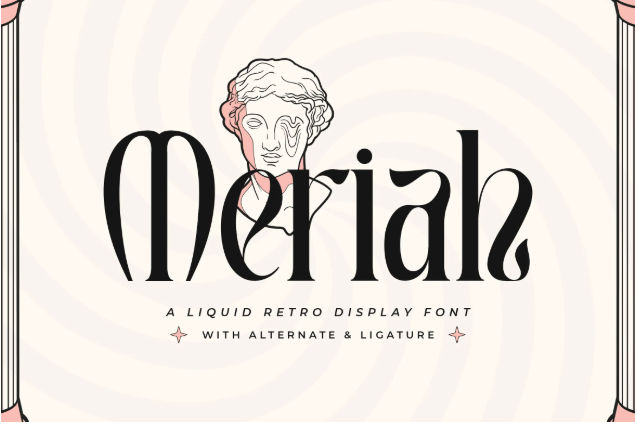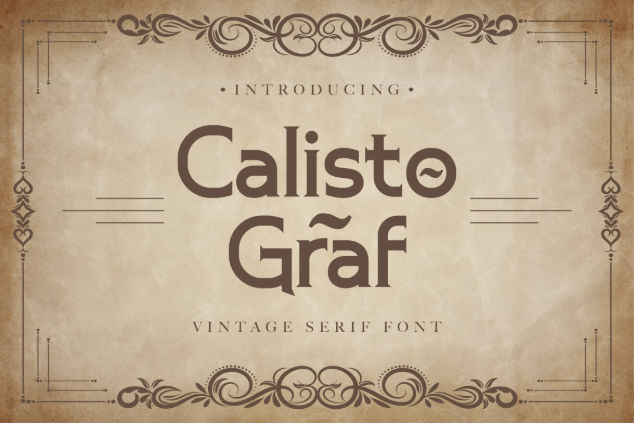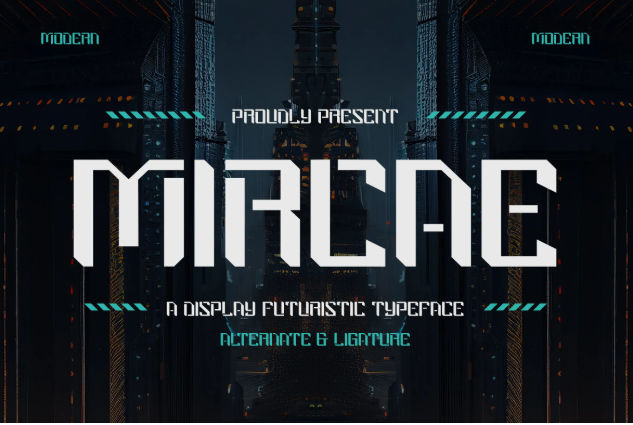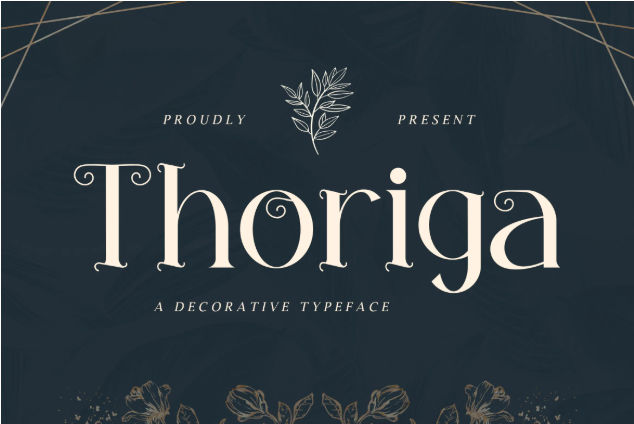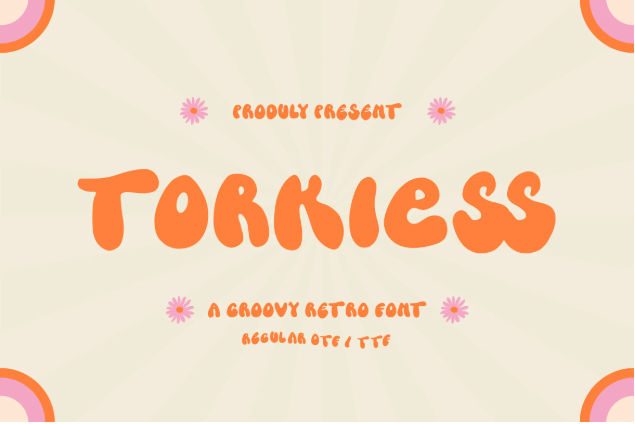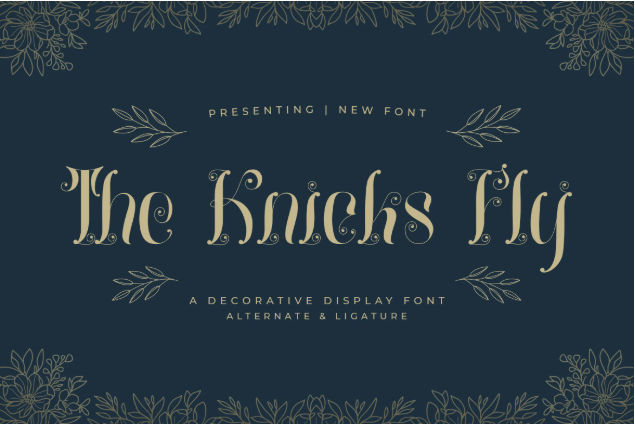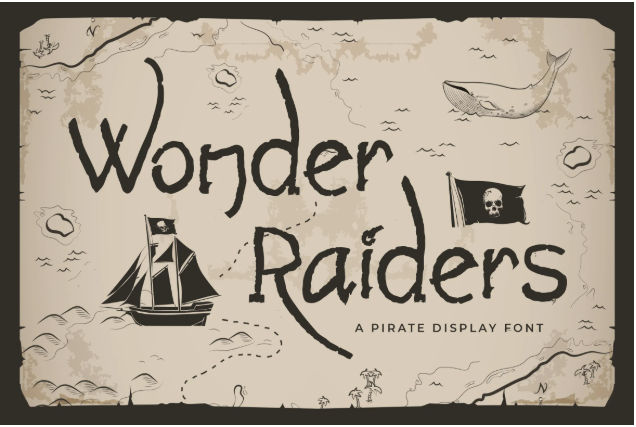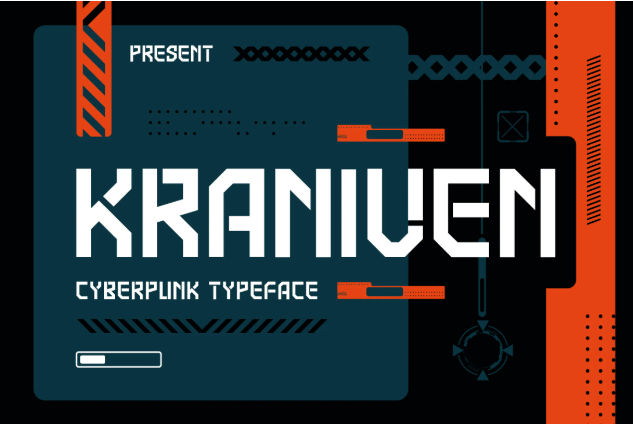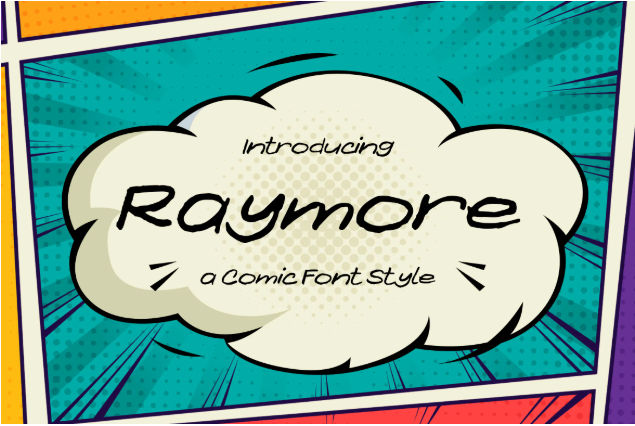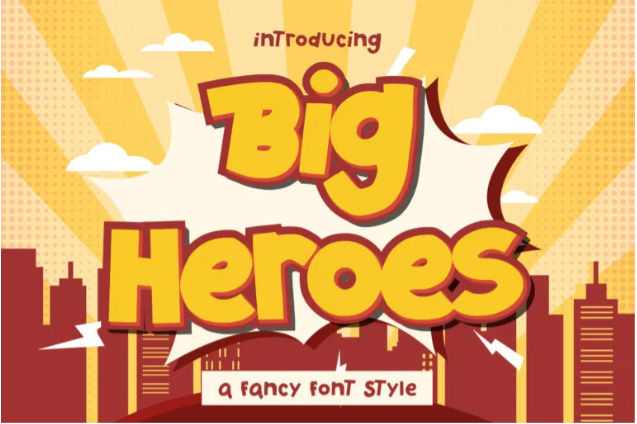
24 Fonts Used for Graphic Novels in Various Genres
Typography in graphic novels goes far beyond mere legibility, fonts serve as a crucial storytelling tool that conveys emotion, pace, and atmosphere. The fonts used for graphic novels have evolved significantly, from hand lettering to sophisticated typefaces. Now, let’s create memorable stories with our font collection!
Fonts Used for Graphic Novels in Various Genres
We’ve compiled 20+ fonts that will help you with story building, whether it’s comedy, action, romance, or even thriller, we got you covered. These high-quality fonts are fit for your book cover and illustration inside, creating a coherent vibe throughout. So, here we go!
1. Comikid
Starting with the obvious comical fonts like Comikid. This font is not only for comics you can use this font in your comedy or slice-of-life graphic novels.
2. Chamika
Chamika is a more explosive font for your stories. The font can deliver the action-packed moments in your climax arc.
3. Raymore
If you want an excellent font in some of your dialogues, Raymore is the one. The font has thin strokes and a bit of italics, the correct specs in a dialogue bubble.
4. Wendigo
For chic-lit, romance, or slice-of-life stories, you can choose Wendigo. This playful font supports your wholesome narrative with its classic typeface.
5. Qabil
Qabil outline font is inspired by comic book aesthetics. The font imitates 3D letters while carelessly orienting the letters left and right.
6. Big Heroes
Big Heroes is another font inspired by comical aesthetics. This font is more boyish though, so, it fits a story that revolves around a boy.
7. Koplok
When your novel is about being goofy or comedy, fonts like Koplok better fit your narrative. The font is bubbly and fun with exaggerated strokes at the end of each letter.
8. Candyful
A feminine font for your chic-lit stories. The font is so versatile that you can also use it in kids’ stories.
9. Cybernetic
A futuristic story certainly needs better visualization, and Cybernetic is the font you need. The typeface mimics an electrical circuit flow combined with 8-bit aesthetics.
10. Meriah
This elegant font is Meriah, the font has Roman vibes to it. This kind of font is exceptional in representing noble characters like a legend or elves.
11. Calisto Graf
In most of the fantasy stories, you make a new world. Fonts like Calisto Graf are perfect to accommodate your map visualization.
12. Dacken
Fonts used for graphic novels usually differ when the worst villain speaks in illustration. When that happens, Dacken is the coolest scary font you need.
13. Catacombs
The haunting story you’ve been building isn’t complete without Catacombs. This horror font has great legibility to be your title text or sound-text when an unnatural being speaks.
14. Monstesh
A more familiar horror font uses a drippy typeface like Monstesh. This font is suitable for highlighting some moments of inexplicable horror.
15. Mircae
A geometric font like Mircae is a font for building your futuristic dystopia. The font has rigid, consistent spacing with an additional stencil touch.
16. Thoriga
You can’t miss out on a nicely decorated font like Thoriga. This beautiful font best represents fantasy stories, magical worlds, motherly figures, or even your title.
17. Torkless
Torkless is an attention-grabbing font. Your bubbly stories will presented better with this font as your title font as well as some goofy dialogues.
18. Norms
To accommodate both magical and feminine vibes, you need Norms. This beautiful font is equipped with rare designs and multiple alternates and ligatures which are no less beautiful.
19. Anodrece
When looking for a humble sans serif font with a touch of futuristic, you’ll find Anodrece. This fresh font switches the typical rigid angles on futuristic fonts with flowy strokes.
20. Hackd
An innovative cyberpunk font with futuristic glyphs, Hackd runs wild with its interpretation. While futuristic, this font is strangely vintage too.
21. The Knicks Fly
The Knicks Fly is another beautifully decorated font. Little twirlers on each letter best represent a natural narrative in your story.
22. Pirate Master